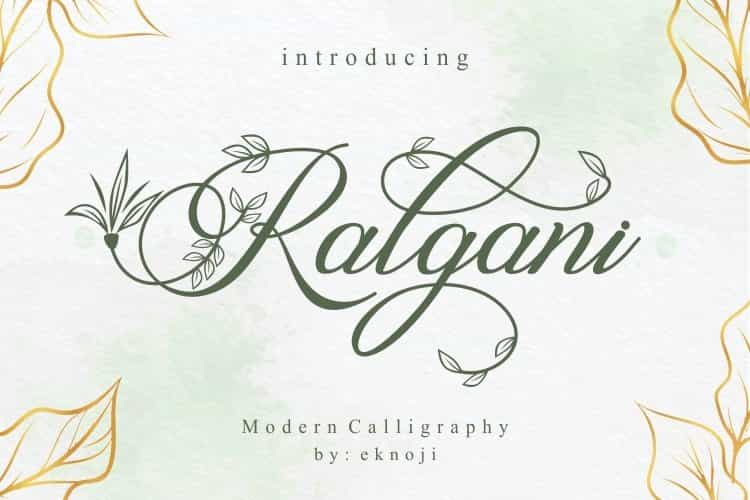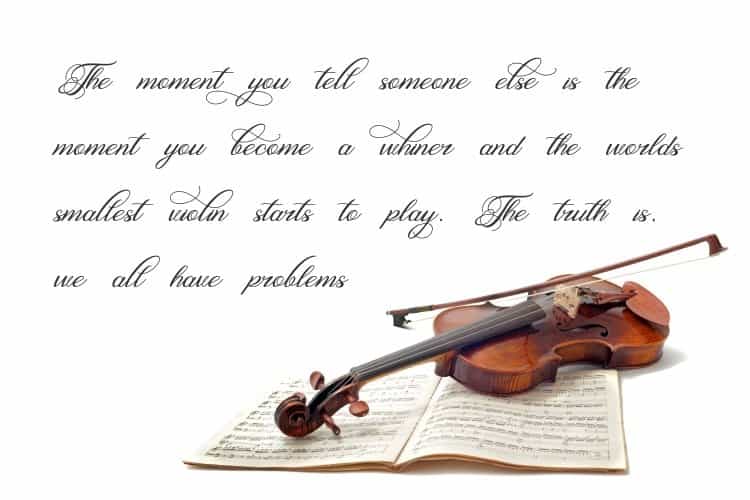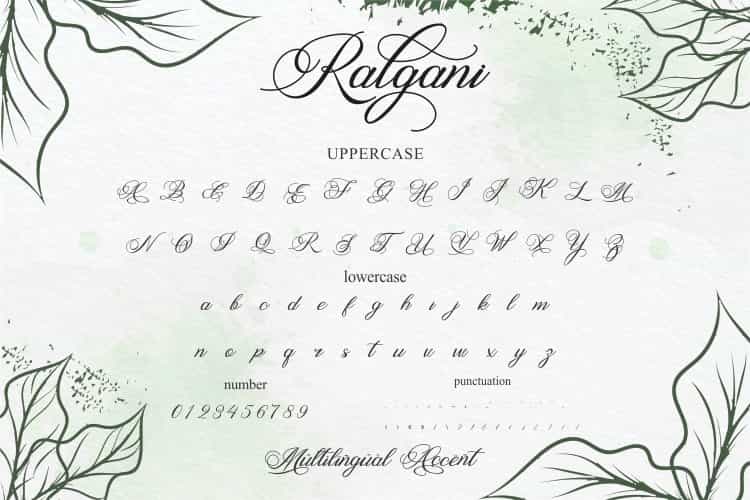
Ralgani is a sophisticated modern font designed with several swashes especially at the beginning and/or end of the characters for the purpose of love swash. Furthermore, this font even has the lowercase heart letters, numbers, and punctuations to make it convenient for the users.